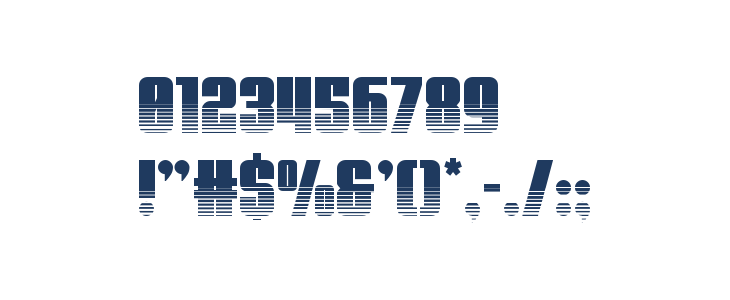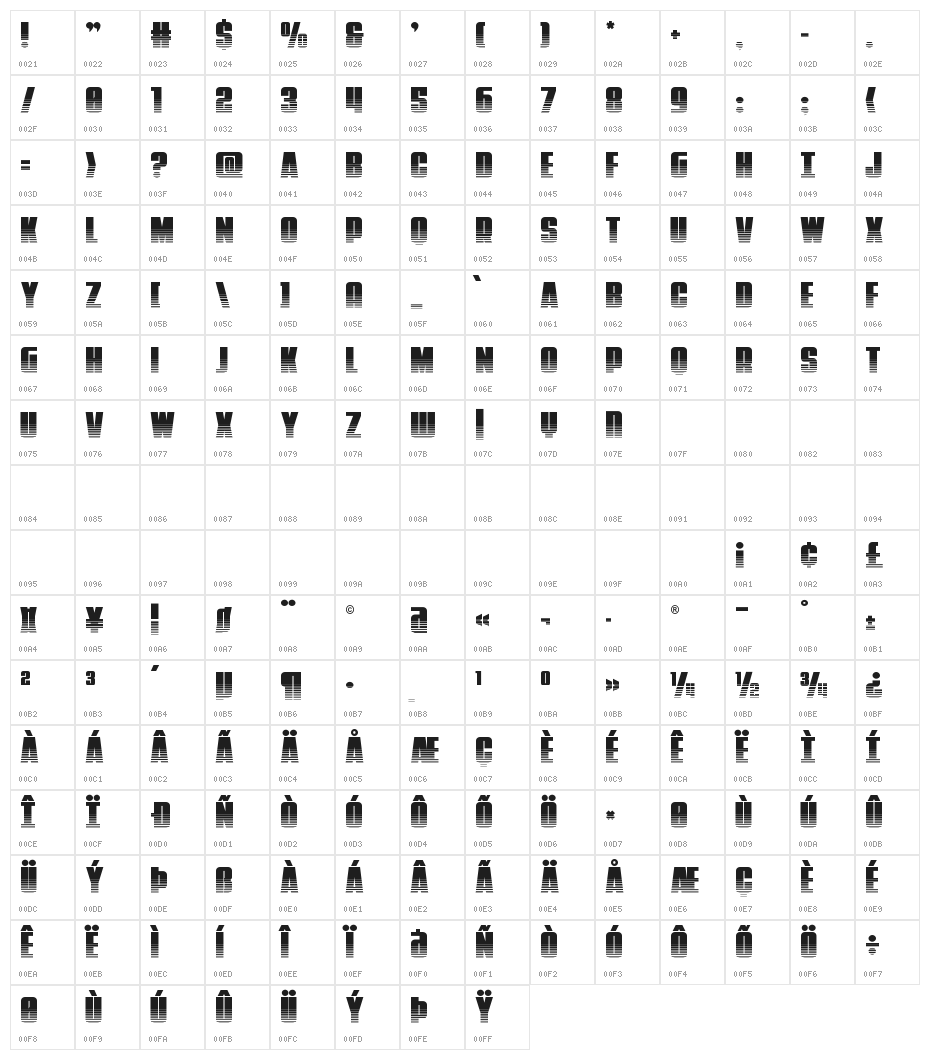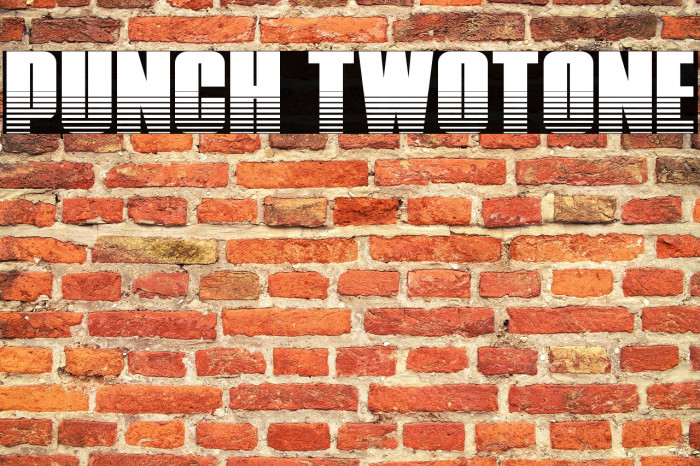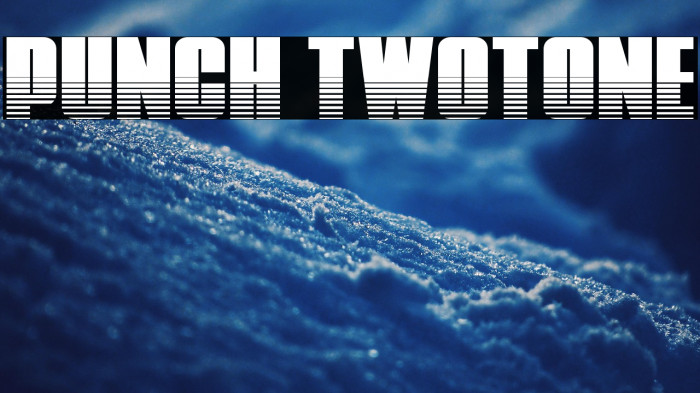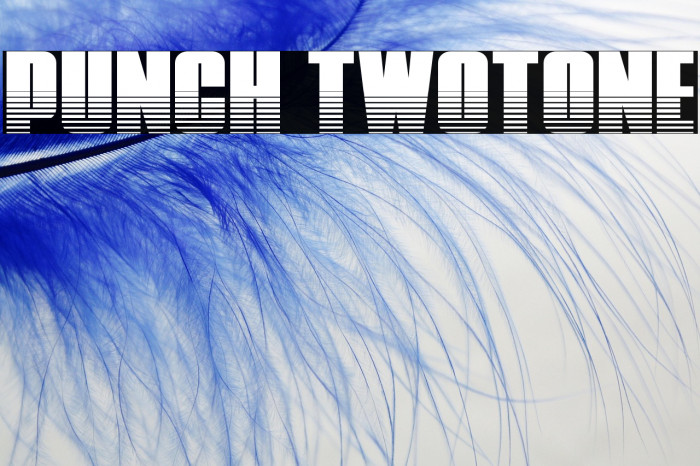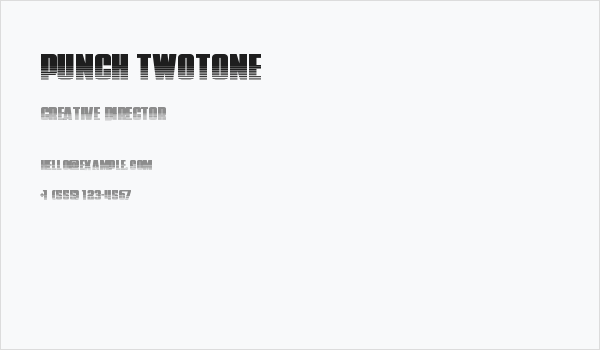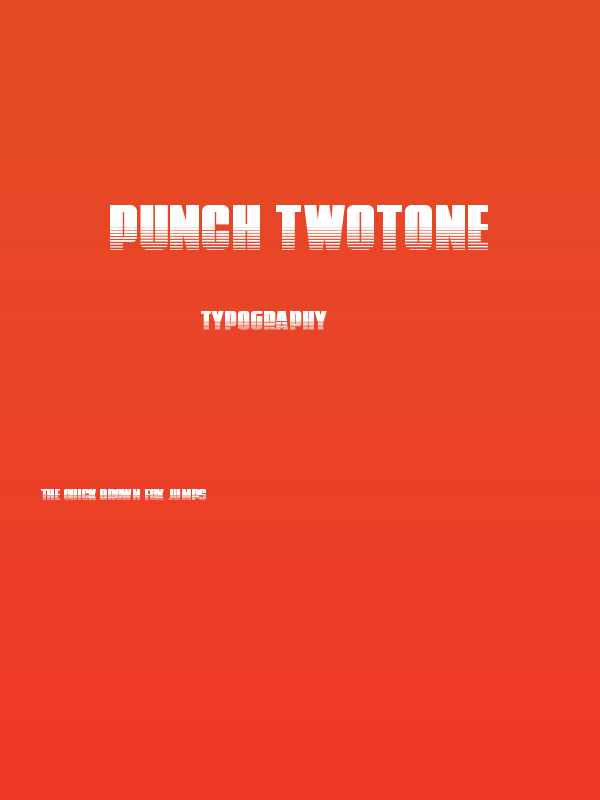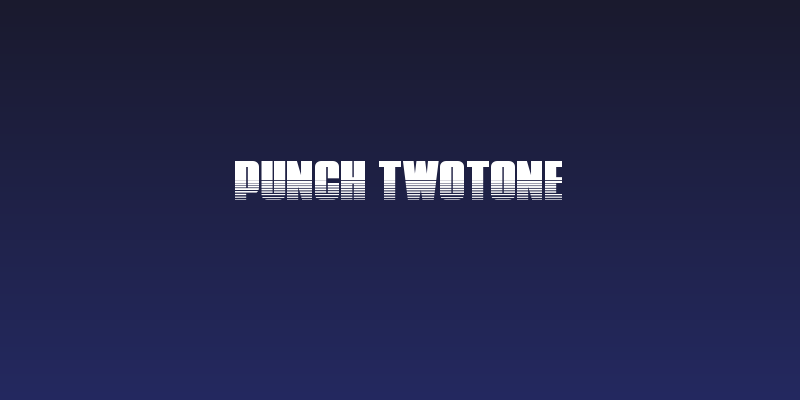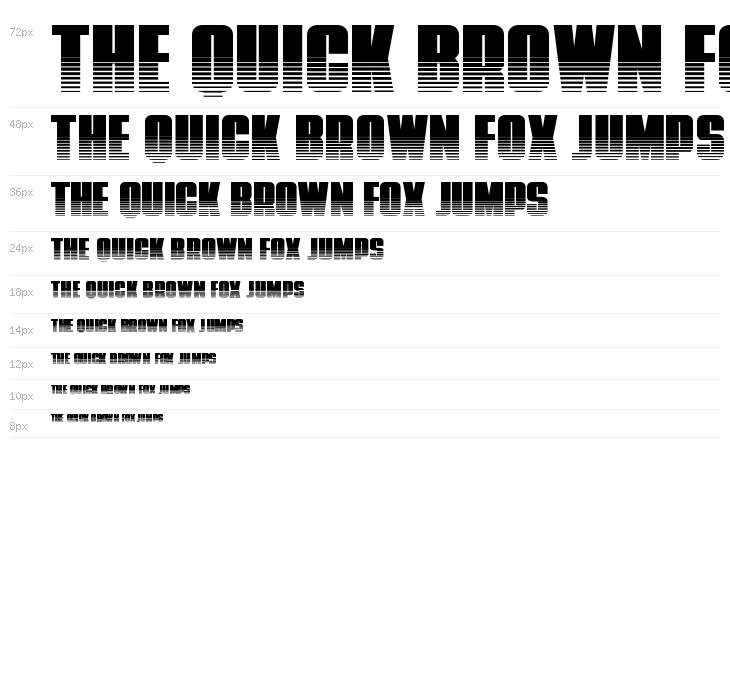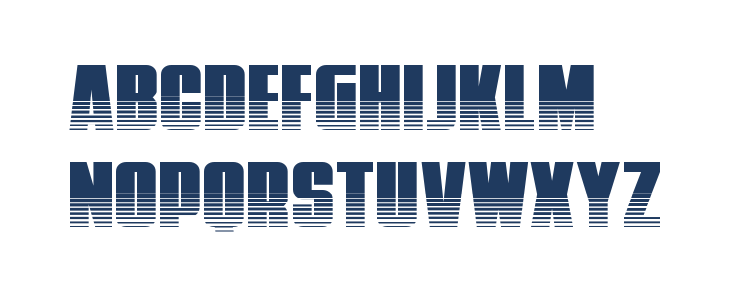
Punch Twotone Font
Punch Twotone Description
This font features a bold and striking design with a two-tone effect that creates a sense of depth and dimension. The uppercase letters are robust and wide, with a unique horizontal line pattern that adds a modern twist. The numerals and special characters maintain this distinctive style, ensuring consistency across all elements. The font's boldness and visual impact make it ideal for attention-grabbing designs. Its structured appearance is both contemporary and versatile, suitable for a range of creative applications.
| Proposed Projects | Ideal for posters, headlines, branding, and any project requiring a bold statement. |